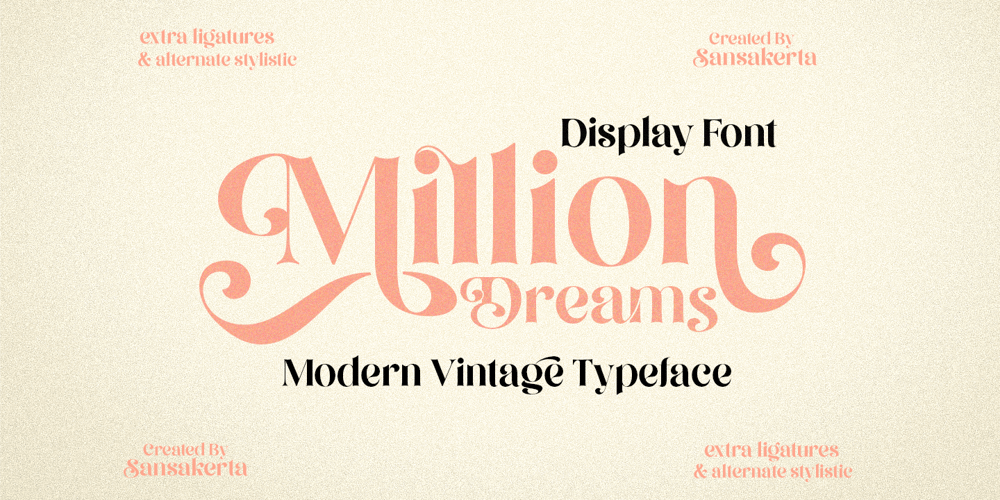
Million Dreams Font Family was designed by Dean Nugraha and published by Sansakerta. Million Dreams contains 1 styles and family package options. Million Dreams is an elegant and bold display font. Unique, playful and versatile serif Fot that you can combine to get curves and beautiful shapes just in seconds. Play with the ornaments to create a more stunning display.This font is suitable for use in many design forms, for example magazines, postcards, logos, vintage look, old classic ,60s, 70s, 80s era, wedding projects and many more. We recommend using Adobe Illustrator or Photoshop. Fall in love with its incredibly versatile style and use it to create gorgeous wedding invitations, beautiful stationary art, eye-catching social media posts, and much more!Cheers! Sansakerta